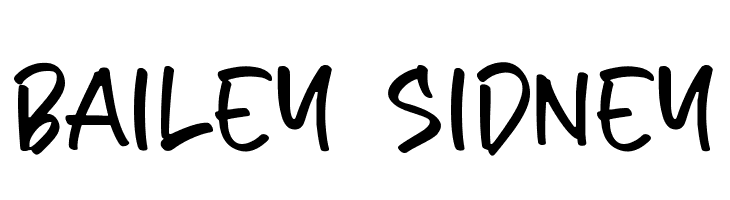
A decorative, pixelated italic font with a retro digital vibe.
A bold, outlined font with a dotted interior pattern, offering a modern and playful look.
A bold, pixelated font with a retro digital aesthetic.
A bold, angular, and italicized font with a futuristic design.
A bold, hand-drawn font with a textured, artistic style.
A bold, hand-drawn font with an organic, wavy design.
A bold, playful font with rounded characters and a whimsical style.
A drippy, watercolor-inspired font with an artistic, fluid design.
A fluid and elegant script font with a handwritten style.
A bold, decorative font with a 3D shadow effect and striped pattern.
A playful, handwritten font with tall, narrow letters and a casual style.
A bold, textured italic font with a rugged, adventurous style.
A bold, textured font with a hand-drawn, distressed style.
A bold, playful font with a hand-drawn, rounded style.
A bold, hand-drawn font with thick, uneven strokes and a playful style.
A bold, distressed font with a brush-like, textured appearance.
A futuristic, geometric font with bold, rounded edges and consistent stroke width.
A futuristic, geometric font with a bold, 3D appearance.
A futuristic, 3D geometric font with an expanded width and tech-inspired design.
A futuristic, 3D, expanded italic font with a tech-inspired design.
A futuristic, 3D italic font with geometric, outlined characters.
A bold, futuristic font with a geometric and digital aesthetic.
A futuristic, expanded, and italicized font with a geometric and modern design.
A futuristic, italicized font with expanded, geometric characters and medium contrast.
A futuristic, italic font with geometric precision and a modern aesthetic.
A futuristic, stencil-like font with a mechanical and digital aesthetic.
A futuristic, stencil-like italic font with geometric and angular design.
A bold, angular font with a futuristic and mechanical design.
A futuristic, tech-inspired font with bold, geometric outlines.
A futuristic, italic font with bold, outlined characters and a tech-inspired design.
A futuristic, slanted font with bold, angular characters and a dynamic style.